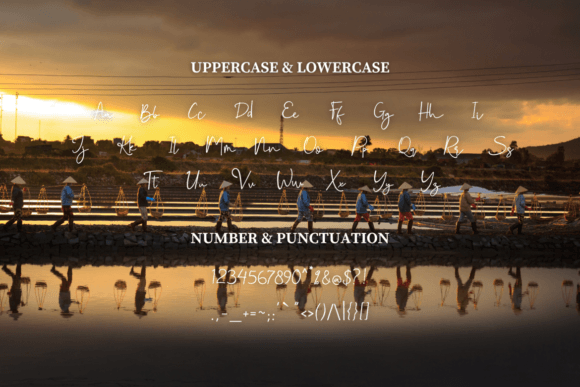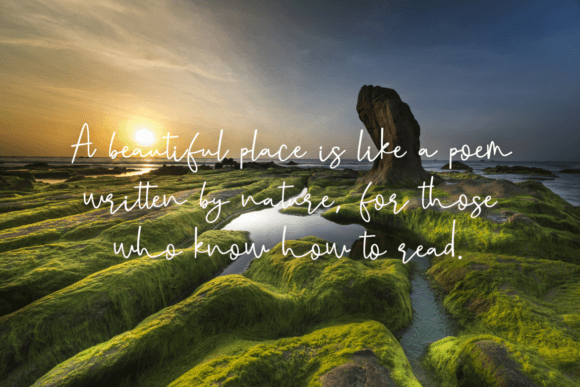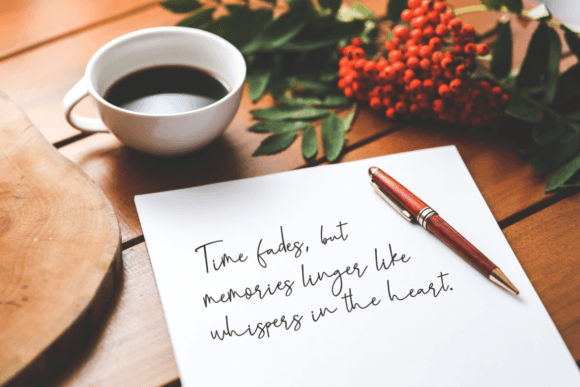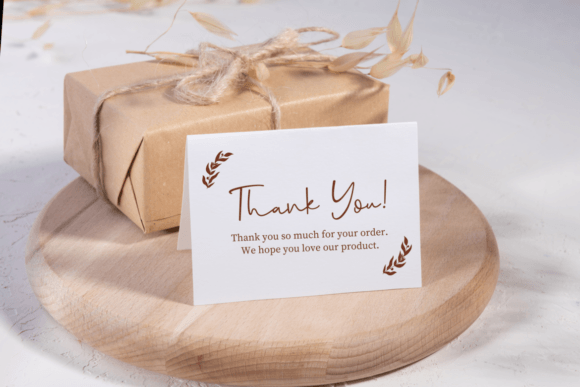
Discover the Timeless Charm of Handwritten Fonts
Have you ever found yourself scribbling down an idea that just won’t let go, only to realize that the imperfect, handwritten script is actually the perfect fit for your creative project? For designers, there’s something special about capturing the essence of a thought or feeling through the imperfections of a handwritten font.
That’s where the Bersambung Font comes in – a beautifully crafted, handwritten script designed to add a touch of personality to every design. Whether you’re creating greeting cards, posters, logos, or branding materials, the Bersambung Font is the perfect tool to bring your vision to life.
With its unique, handcrafted feel, the Bersambung Font offers designers a valuable resource to express themselves and connect with their audience on a deeper level. By incorporating this versatile font into your creative projects, you’ll be able to add a touch of warmth and authenticity that’s hard to find with more traditional, digital fonts.
Bersambung Font Key Features
- Unique Characteristics: The font features a unique blend of traditional and modern elements, making it perfect for designers looking for a distinctive and eye-catching typography.
Bersambung Font Review
Initially, I was drawn to the Bersambung font due to its unique, elegant script style ✨. It adds a touch of sophistication to any text, making it perfect for wedding invitations, branding, or formal events. The font also includes a range of weights and styles, allowing for versatility in its use.
However, I do have some concerns about the font’s limitations ⚠️. Firstly, the font may not be suitable for body text due to its intricate design, which can make it difficult to read at smaller font sizes. Additionally, the font lacks a true italic version, which may limit its use in certain contexts.
Here are some key features and limitations of the Bersambung font:
- ✨ Unique, elegant script style
- ✨ Range of weights and styles
- ⚠️ May not be suitable for body text
- ⚠️ Lacks true italic version
Overall, the Bersambung font is a beautiful addition to any designer’s toolkit. While it may have some limitations, its unique style and versatility make it a great choice for certain projects. Just be sure to use it judiciously and consider the context in which it will be used.
Getting the Most Out of Bersambung Font
To get the most out of Bersambung Font, try experimenting with different font sizes, colors, and combinations with other fonts.
You can also use Bersambung Font for headings, titles, and other important text elements to create a visually appealing design.
Bersambung Font is commonly used for:
1. Traditional and cultural designs.
2. Asian-inspired graphics and typography.
3. Wedding invitations and stationery.
4. Packaging design and branding.
Alternatives to Bersambung Font1. Druk Font
Druk Font is a sans-serif typeface that originated in Ukraine. It’s ideal for use in digital products, such as mobile apps and websites, where a clean and modern aesthetic is desired. Druk Font has a more geometric look compared to Bersambung Font, which has a more organic feel.
2. Noto Sans Font
Noto Sans Font is a sans-serif typeface developed by Google. It’s suitable for use in a variety of contexts, including digital products, print materials, and even signage. Noto Sans Font has a more neutral and versatile design compared to Bersambung Font, which has a more distinctive and cultural feel.